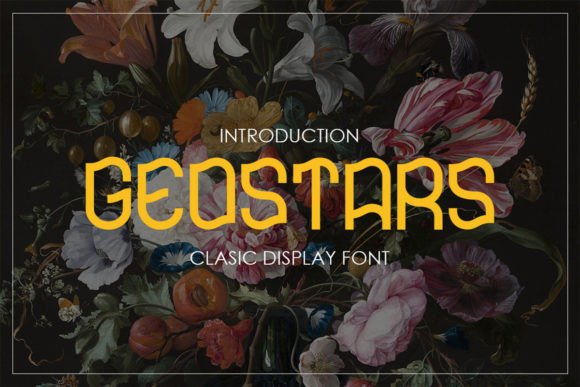
**Introducing Geostars: The Display Font That Captivates Hearts**
Embark on a typographic odyssey with Geostars, a captivating display font that effortlessly evokes the charm of a bygone era. Its meticulously crafted vintage art style exudes a timeless elegance, perfect for injecting a touch of nostalgia into your creative endeavors.
Indulge in the limitless possibilities that Geostars offers. Whether you're crafting eye-catching posters, designing unforgettable logos, creating unique t-shirts, or embellishing badges and stickers, this font seamlessly adapts to your vision. Its versatility extends to captivating social media posts, alluring website headers, and alluring packaging designs.
Unleash your imagination and let Geostars weave its magic into your designs. Its PUA encoding grants effortless access to a treasure trove of glyphs and swashes, empowering you to add intricate details and expressive accents to your creations.
With Geostars, the ordinary transforms into the extraordinary. Its captivating presence commands attention, leaving an indelible mark on every project. Embrace the allure of the past and elevate your designs to new heights with this enchanting display font.